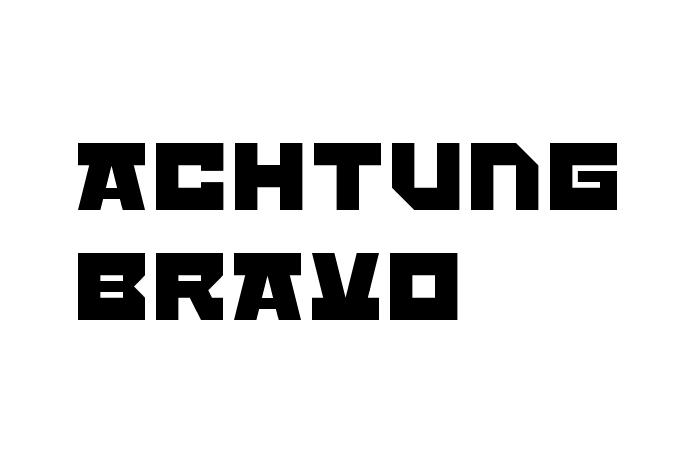
HENAVE Regular
Henave is a bold and thick lettered display font. It will elevate a wide range of crafting ideas, from cards, to branding, labels and much more.